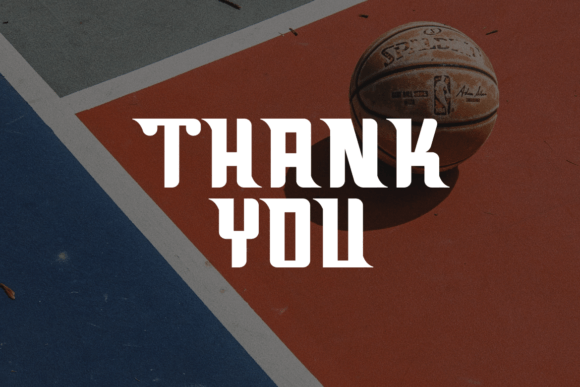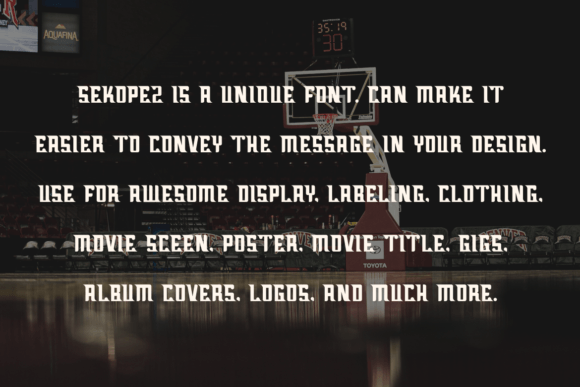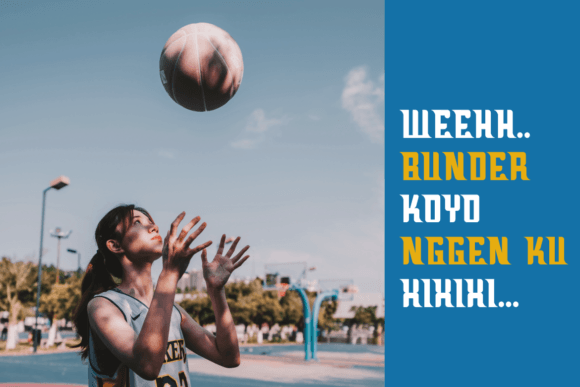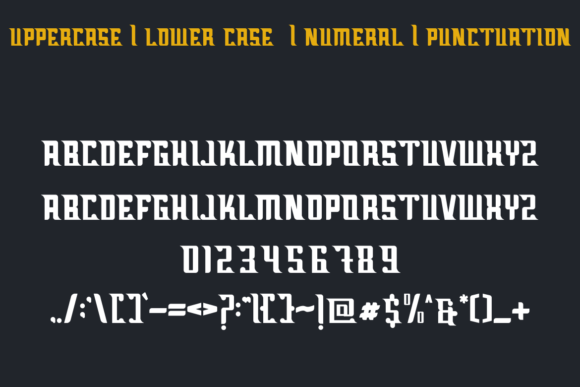
Introduction to Sekopez Font
Sekopez is an incredibly cool and unique display font.
It has a modern yet whimsical style and it will undoubtedly immerse your designs into a magical world .
Key Features of Sekopez Font
Why Choose Sekopez Font?